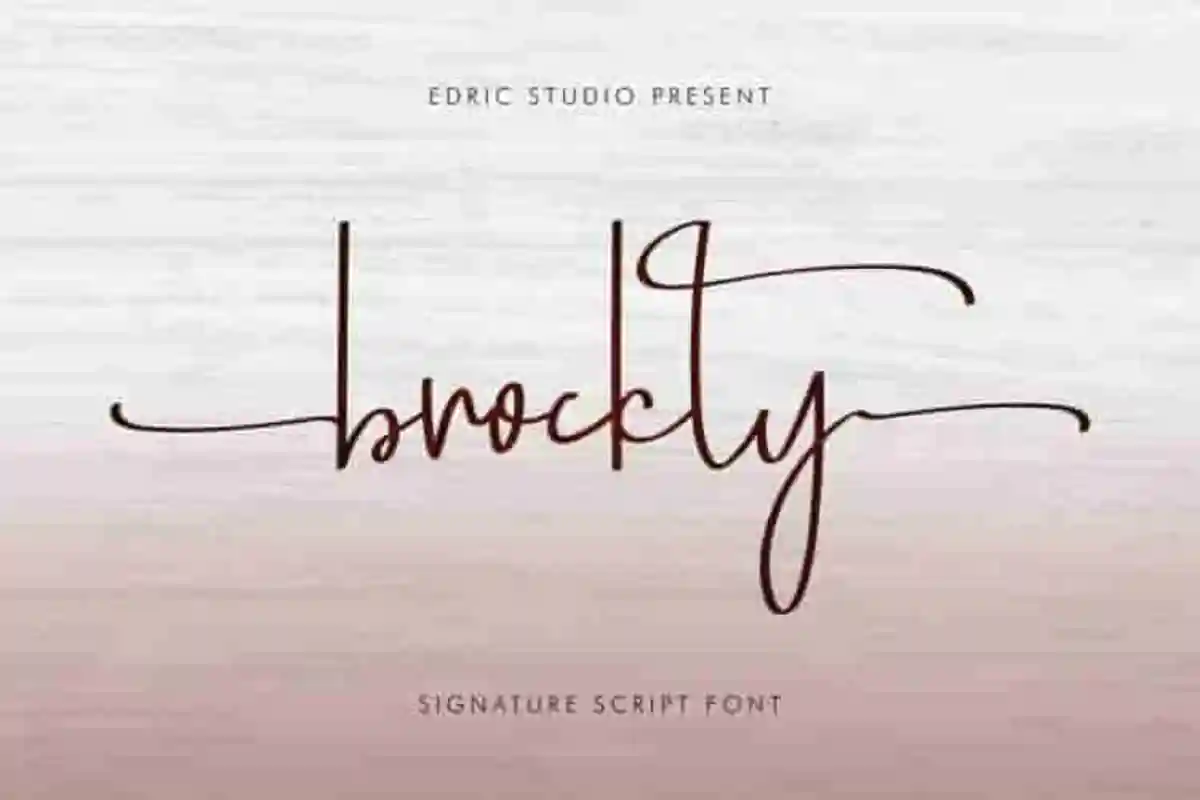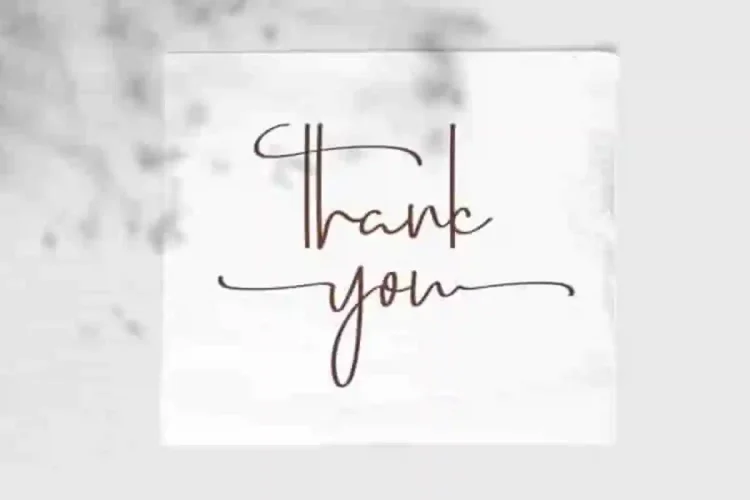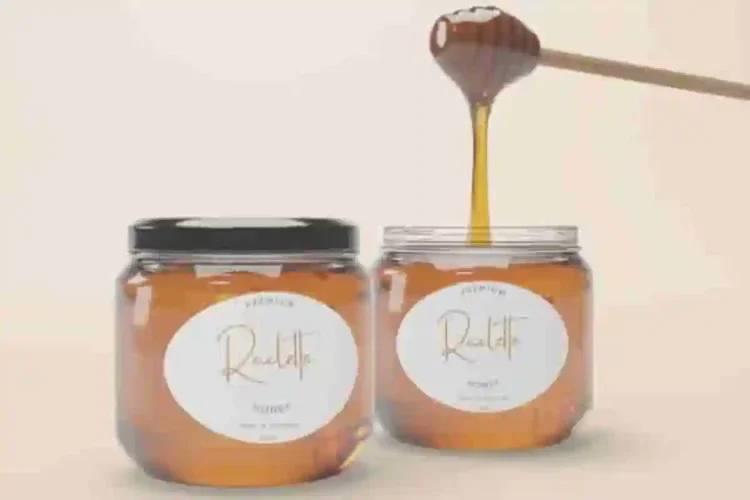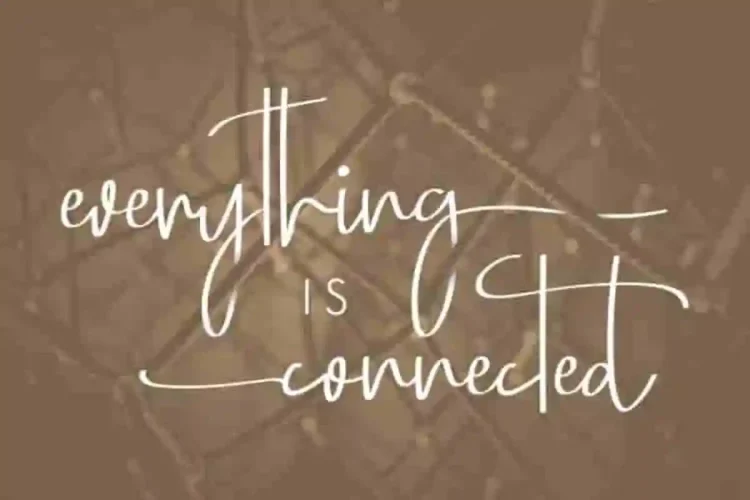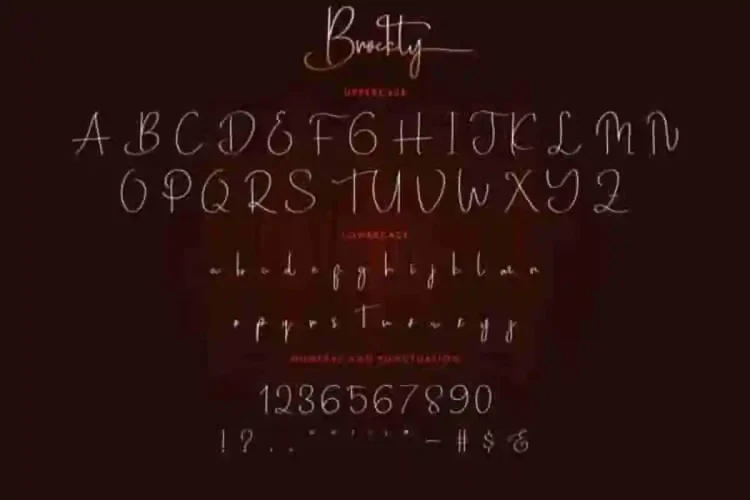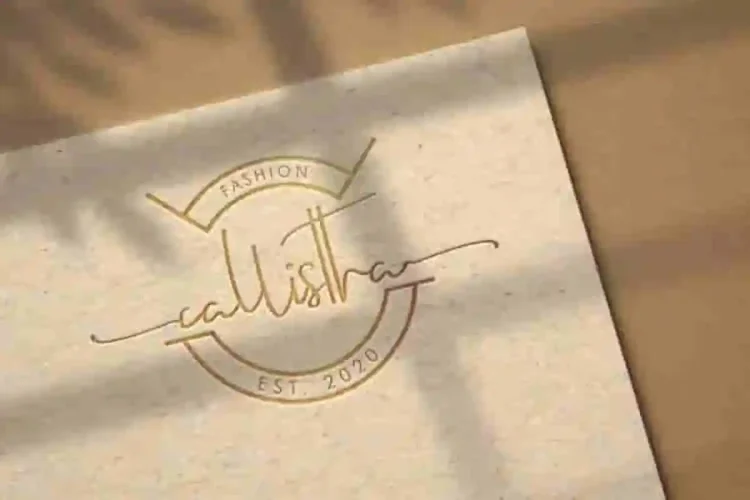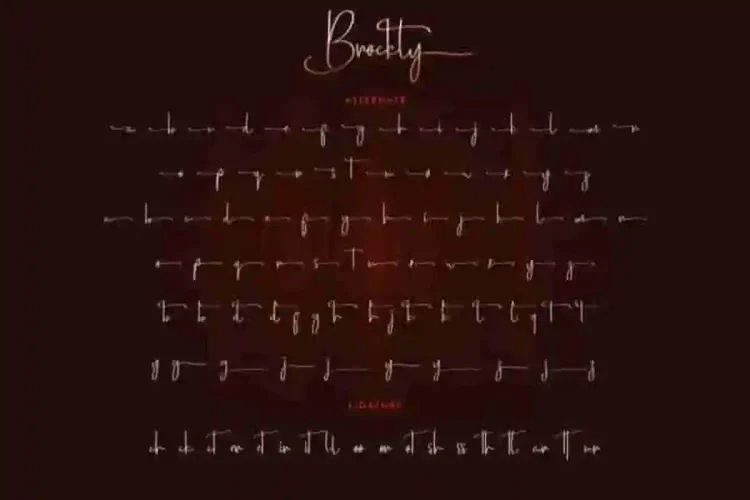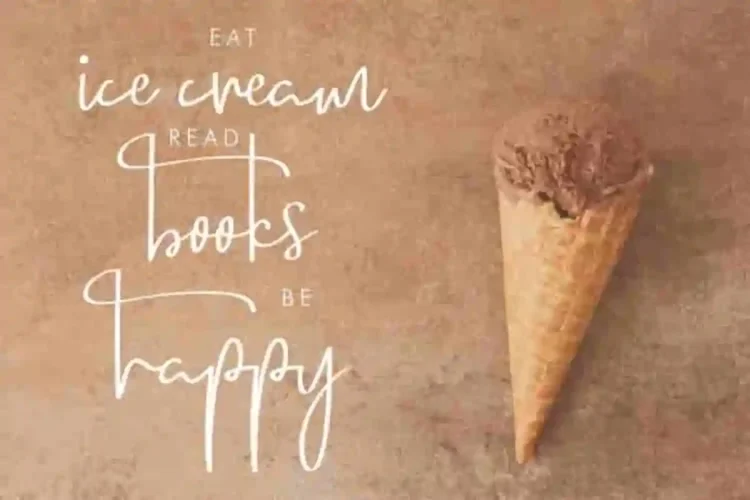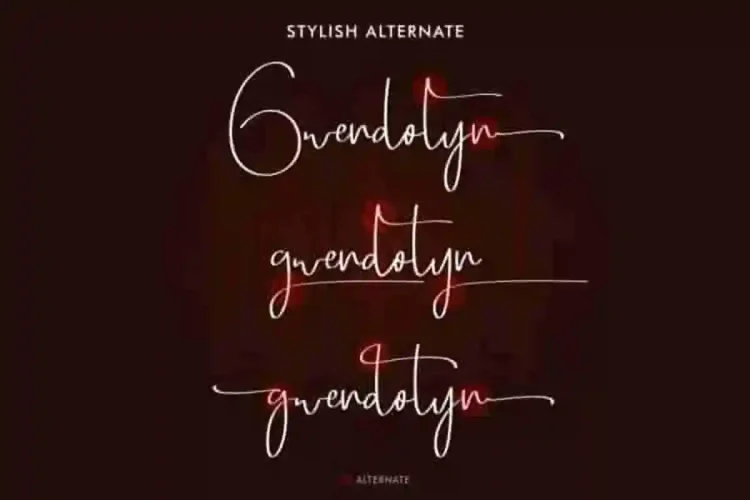
Brockly Signature Handwritting Font
Brockly Signature Handwritting Font is a signature font script family with elegant handwriting style, handcrafted from our Studio here in, Indonesia. The designers of this beautiful typeface is Widi and Sarah.
Brockly Signature Font is an original signature handwritting typeface with unique natural look. It has a stunning characters set, perfectly managed with well spaced and kerning. Inspired by authentic handwriting, Brockly brings a natural, stylish, and sophisticated signature look to any project.